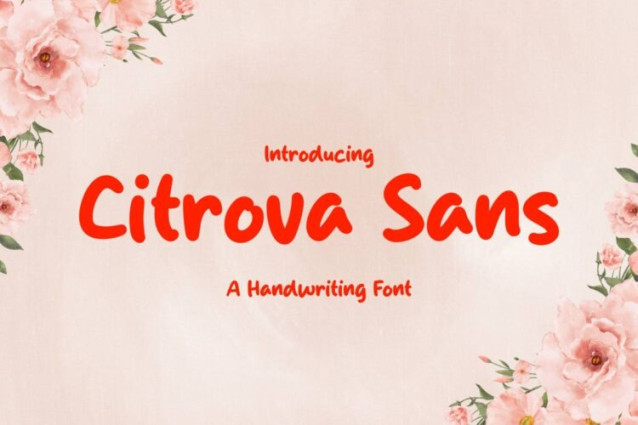
Citrova Sans Font
Citrova Sans Font is a simple and friendly handwritten font. Its natural and unique style makes it incredibly fitting to a large pool of designs. The only limit is your imagination!